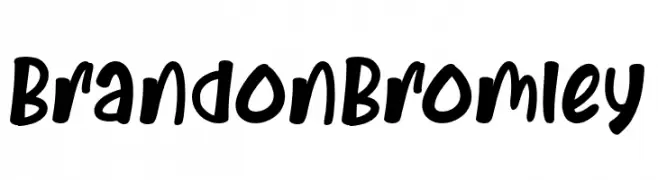
Brandon Bromley Font
Font by DumadiStyle
A bold, playful handwritten font with thick strokes and a casual style.
BrandonBromley Font
Font by DumadiStyle
A bold, playful handwritten font with a casual and friendly style.
A playful, handwritten font with an informal and friendly style.
Stephenson Brandon Font
Font by Perspectype Studio - Personal-use only. For commercial use please contact owner.